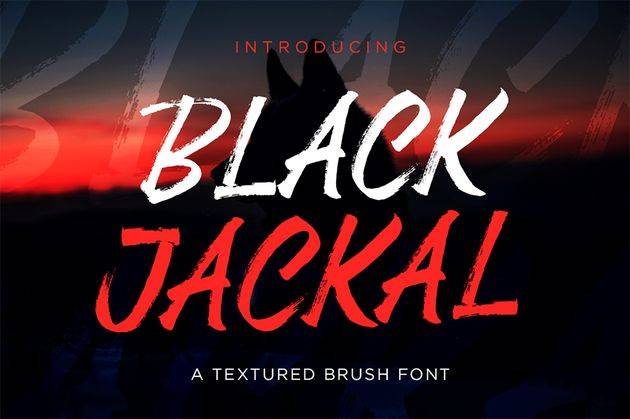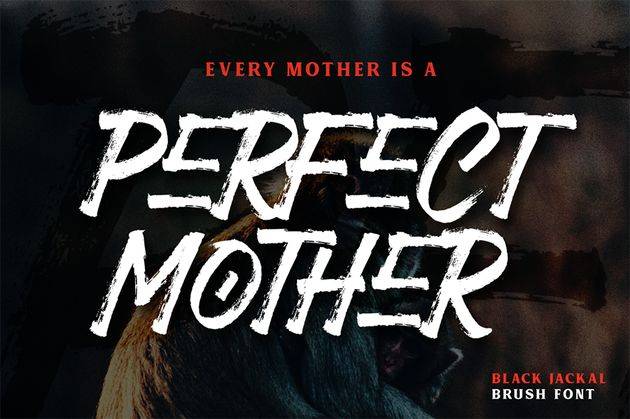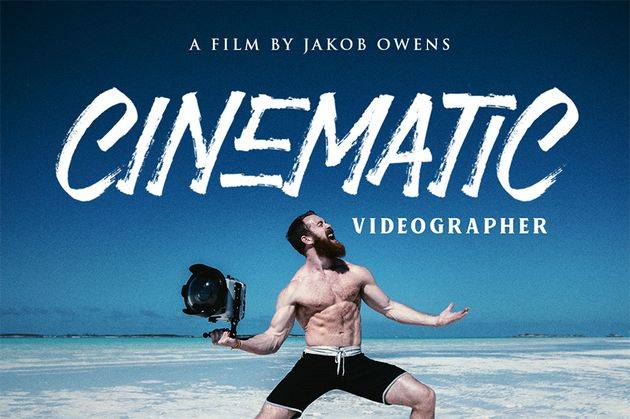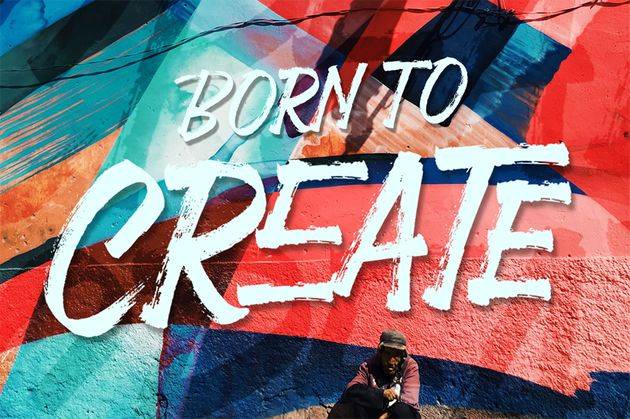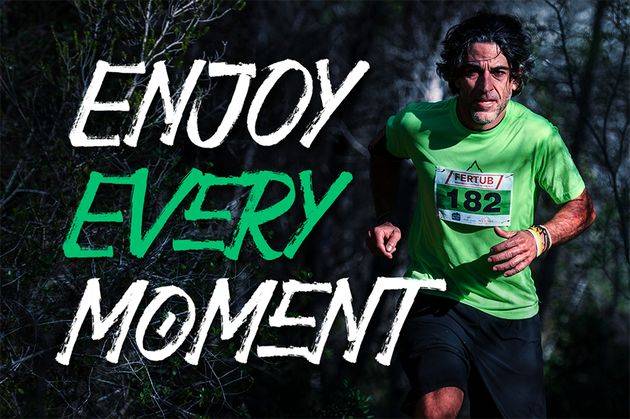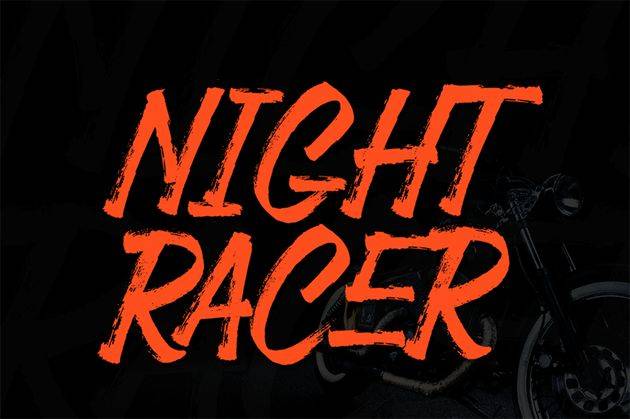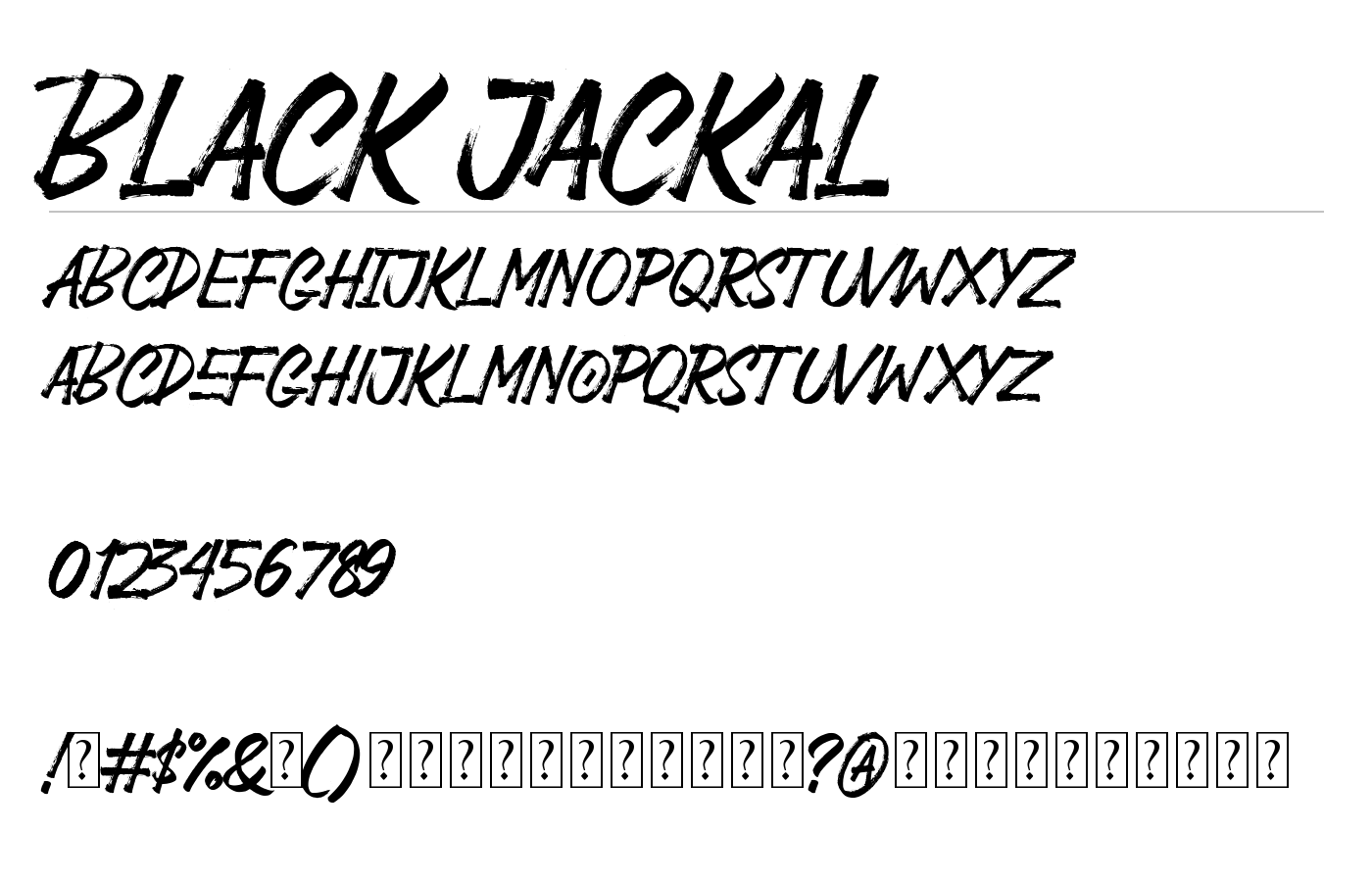
Black Jackal Brush is a bold, energetic brush script font that captures a raw, hand-painted feel with its textured, rough strokes and slightly condensed letterforms. Its casual yet dynamic style makes it perfect for designs wanting a strong, artistic personality, such as posters, branding, and edgy headlines that need to stand out with a handcrafted vibe. This font brings a lively, expressive character to any creative project that seeks a bold and unconventional look.
Black Jackal Brush Font
About Black Jackal Brush Font